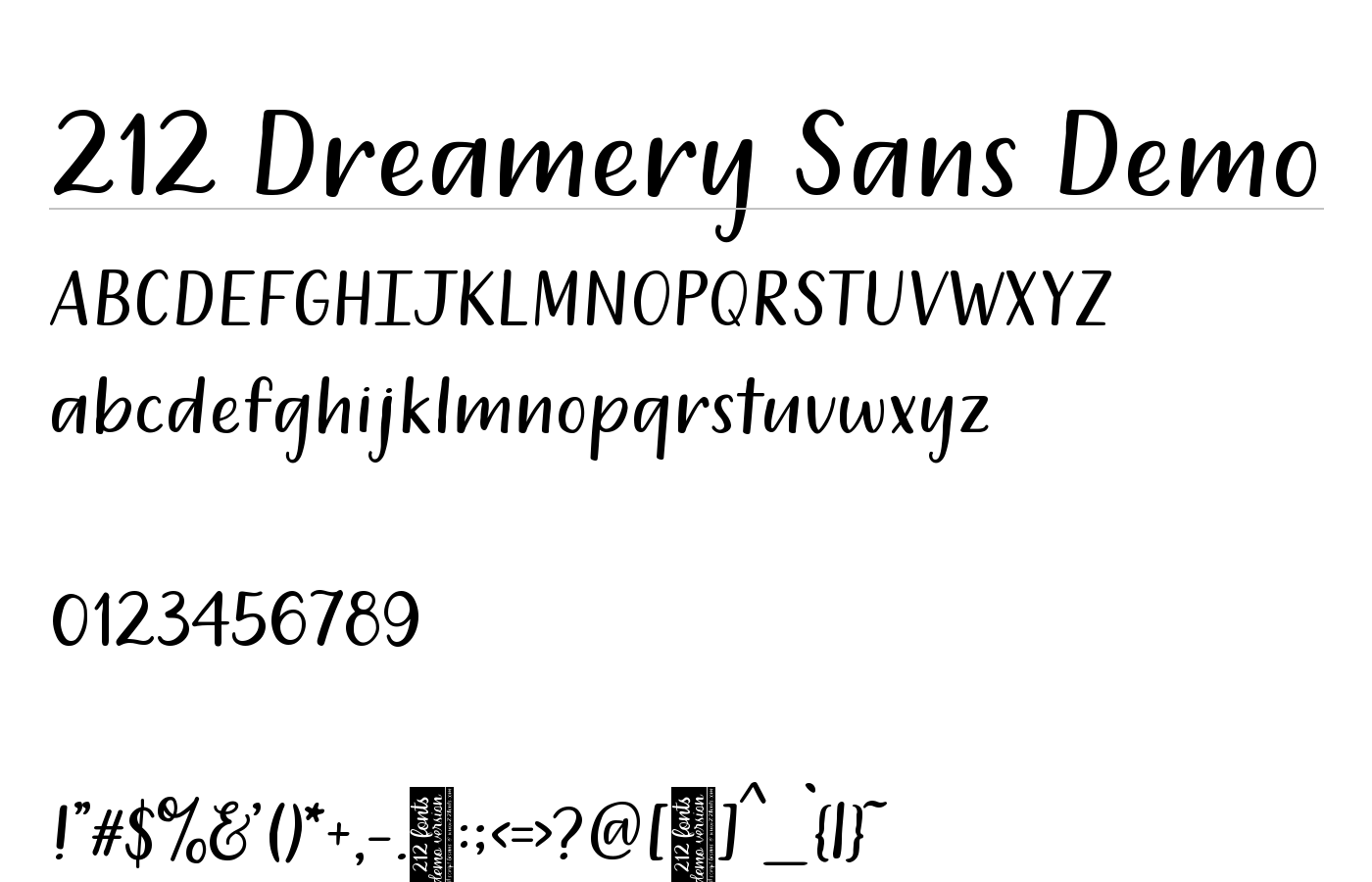
212 Dreamery Sans Demo is a playful and friendly sans serif font with a handwritten feel that combines casual charm and clean readability. Its light weight and slightly condensed, upright letterforms with gentle stroke contrast make it ideal for creative and approachable designs, perfect for logos, informal branding, and inviting headlines. This font’s unique character shapes and warm personality bring a relaxed yet polished touch to any project.
212 Dreamery Sans Demo Font
About 212 Dreamery Sans Demo Font
| Font family | 212 Dreamery Sans Demo Font |
| Designer | Elizabeth McLain |